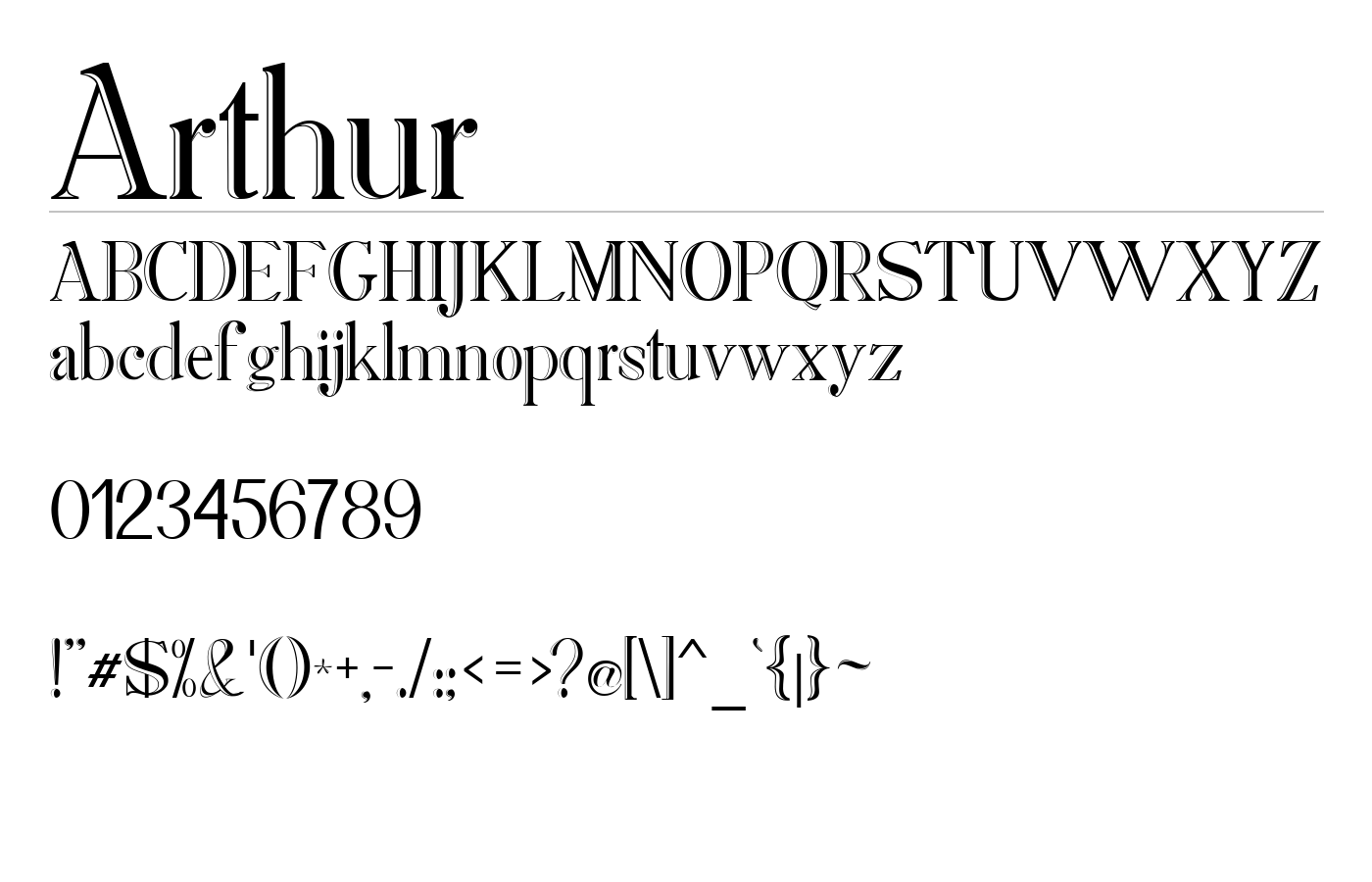
Arthur is a refined serif font with elegant, high-contrast strokes and delicate, bracketed serifs that give it a sophisticated, vintage charm. Its tall, narrow letterforms and unique details in characters like the single-story 'g' and curved tail on the 'Q' make it ideal for luxury branding, editorial headlines, and stylish packaging where a touch of classic elegance is desired. This font works beautifully in contexts that call for a graceful yet distinctive typographic voice.
Arthur Font